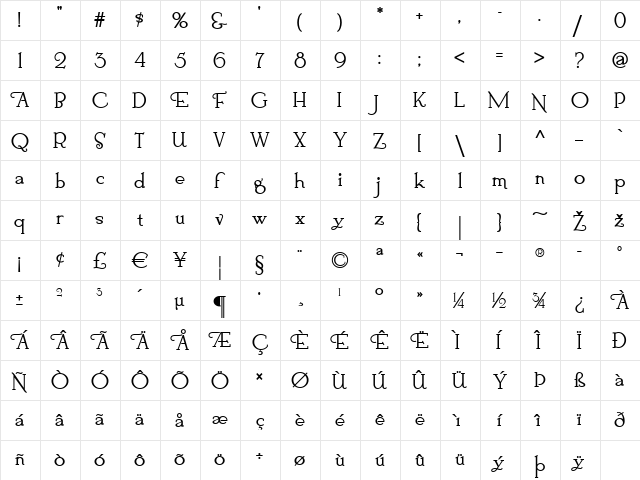
Duffys Tavern NF Regular
Design Context for Duffys Tavern NF Typeface
Duffys Tavern NF is a composed and adaptable typeface that performs quietly and consistently across a wide range of design contexts.